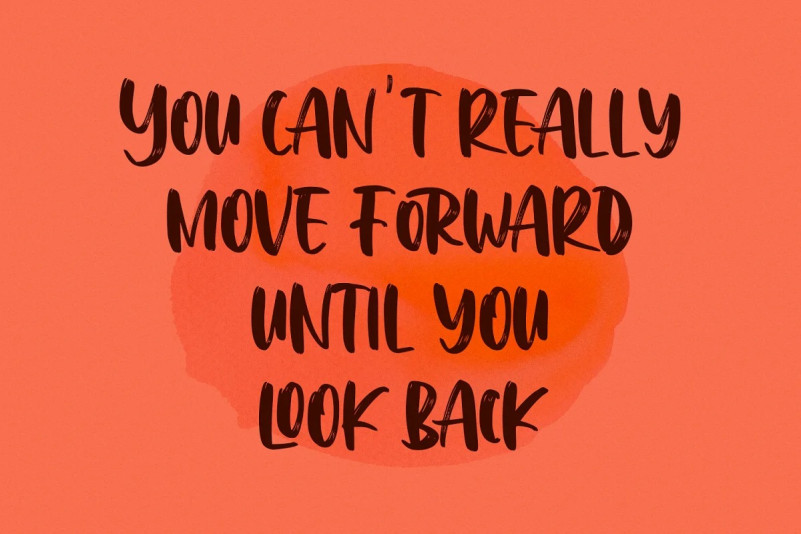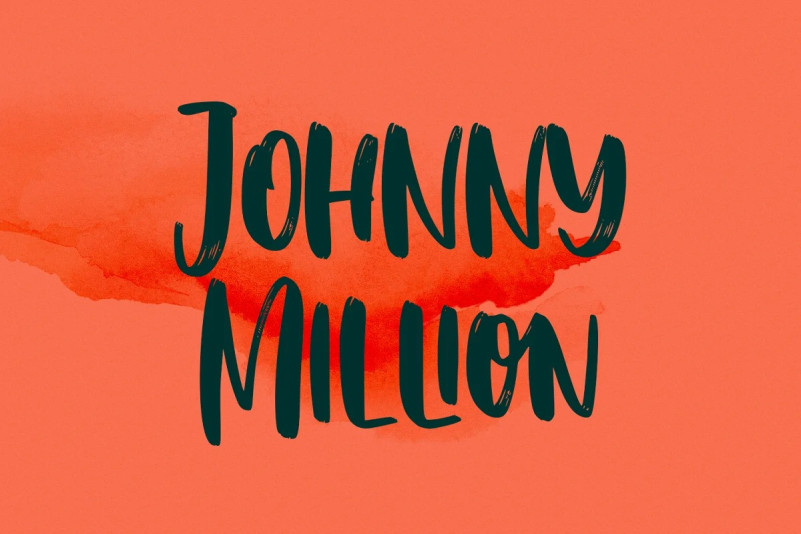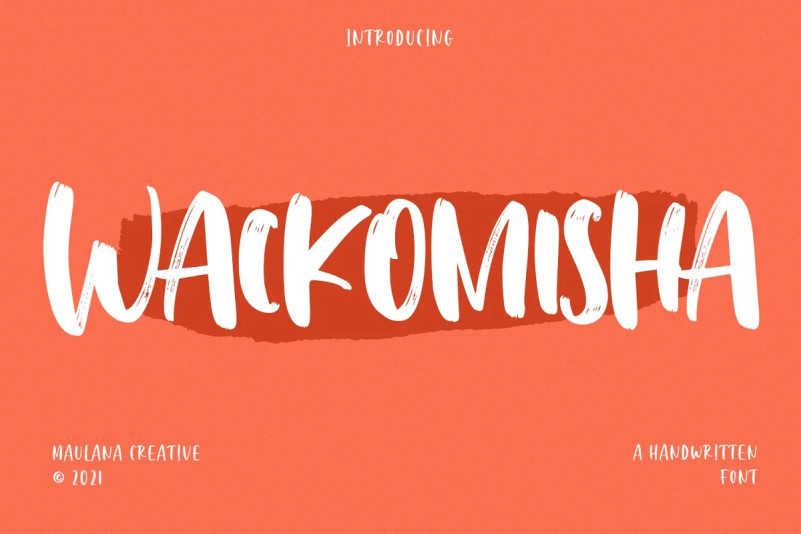
Wackomisha Font
Wackomisha Brush Font is a fancy handwritten brush font. With bold stroke, fun character with a bit of ligatures. To give you an extra creative work. Wackomisha font support multilingual more than 100+ language. This font is good for logo design, Social media, Movie Titles, Books Titles, a short text even a long text letter and good for your secondary text font with sans or serif. Make a stunning work with Wackomisha font.